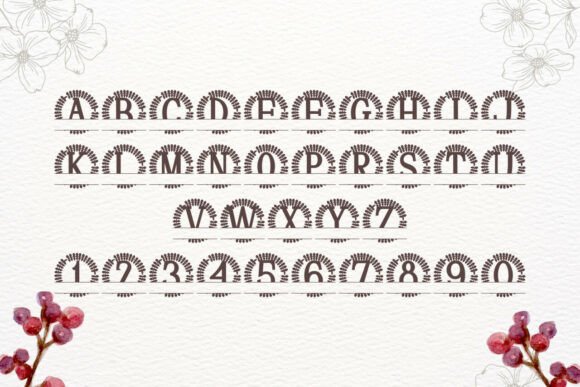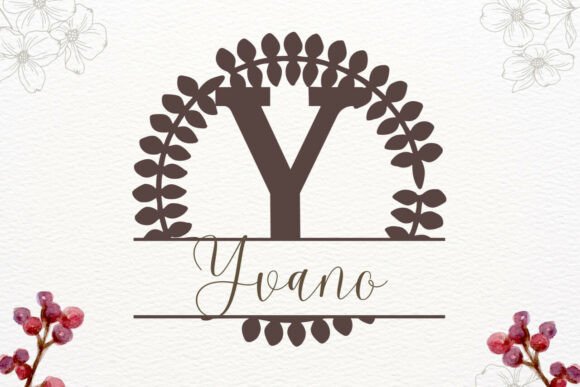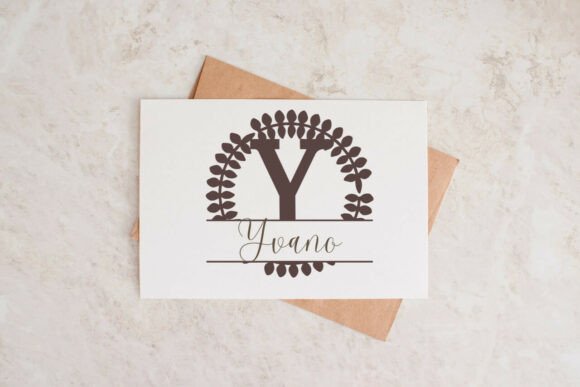
Introduction to Lumille Split Monogram Font
Meet Lumille Split Monogram Font turns any initial into a radiant, name-ready emblem in seconds.
Calm, balanced letterforms carry quiet elegance, while a precise horizontal split creates natural space for names, dates, or short words Because spacing stays even and counters remain open, designs look polished on tiny tags, door hangers, tumblers, ornaments, menus, and wall art.
Key Features of Lumille Split Monogram Font
Why Choose Lumille Split Monogram Font?
Lumille Split Monogram Font offers exceptional quality and versatility, making it a valuable addition to your design toolkit. Whether you’re creating for personal projects or commercial use, Lumille Split Monogram Font delivers professional results.